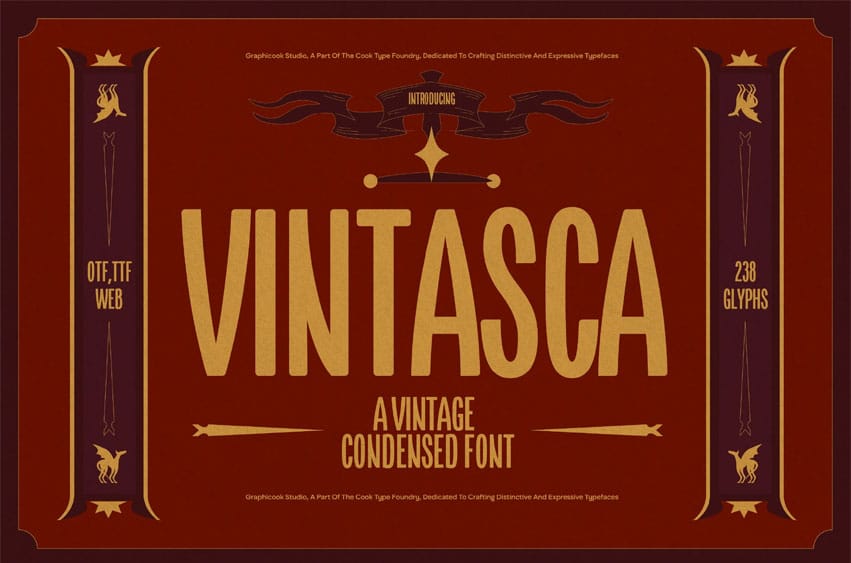
Vintasca Font is a vintage condensed font inspired by medieval themes, featuring a distinctive typeface. Ideal for vintage magazines, classic movie posters, or heritage product branding.
Vintasca is perfect for headlines, logotypes, magazines, packaging, quotes, movies, games, cover albums, book covers, and flyers, it’s a perfect solution for creating eye-catching designs that stand out in any context.